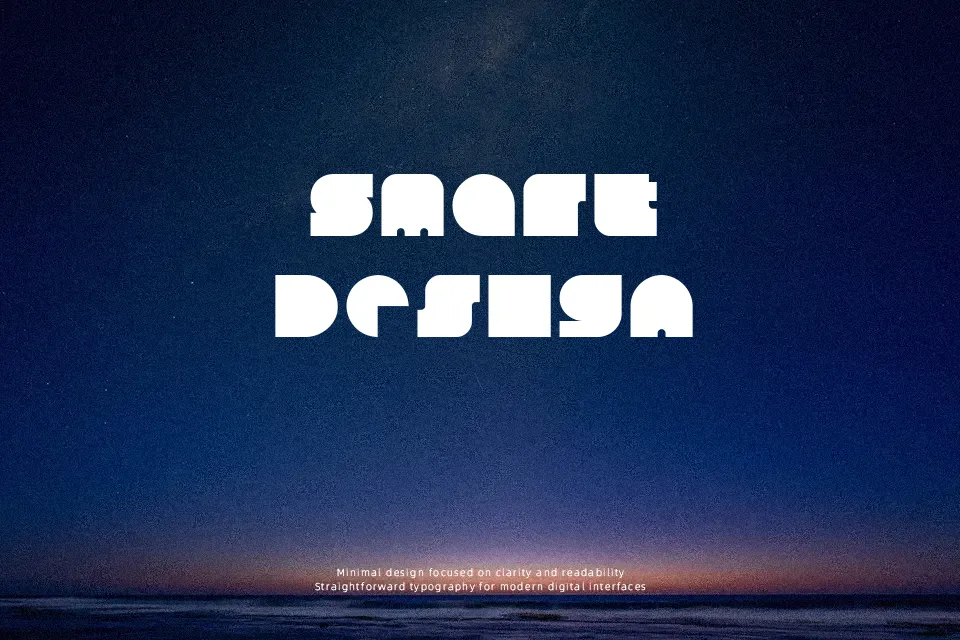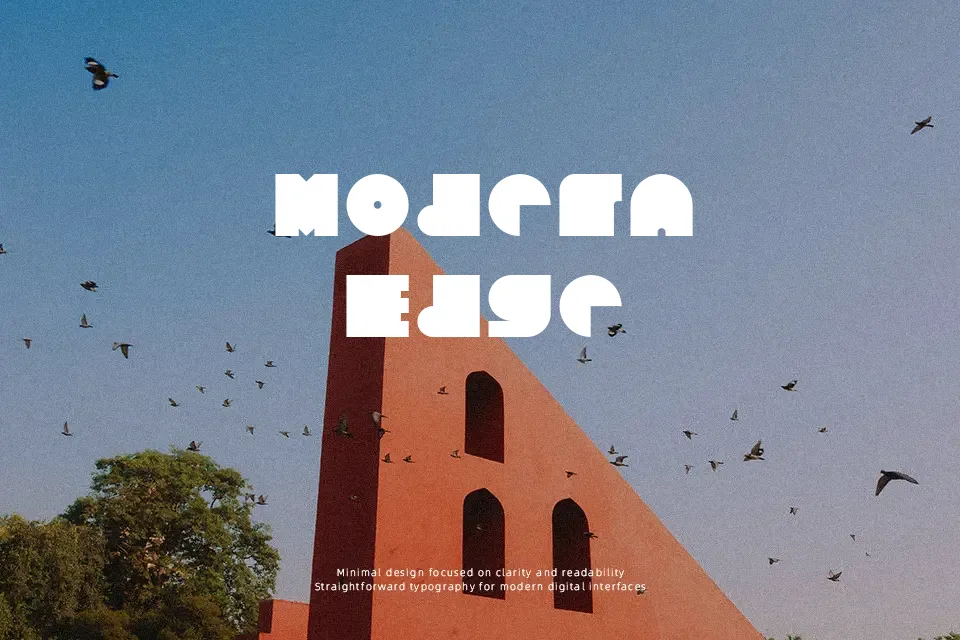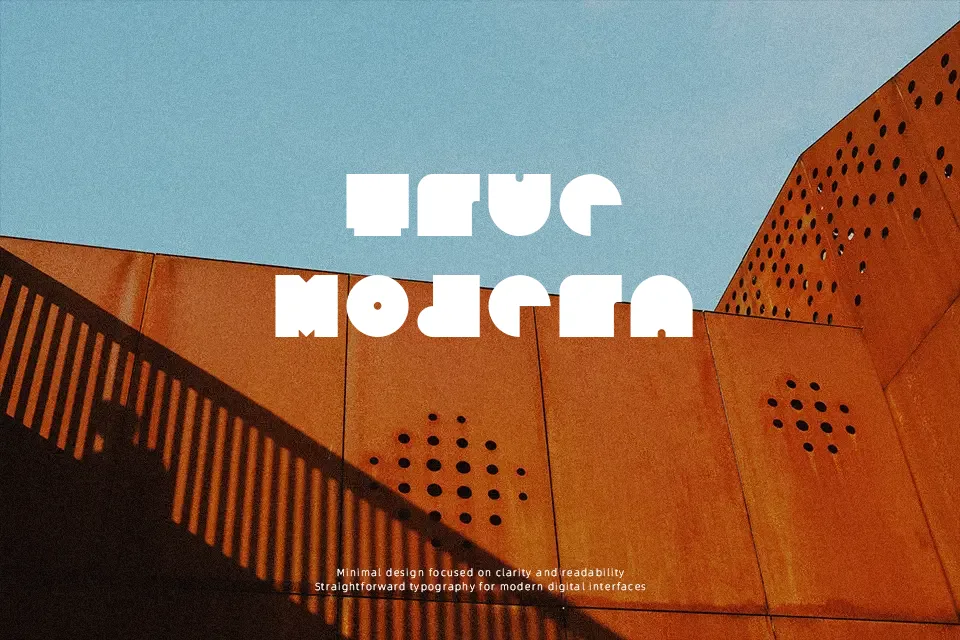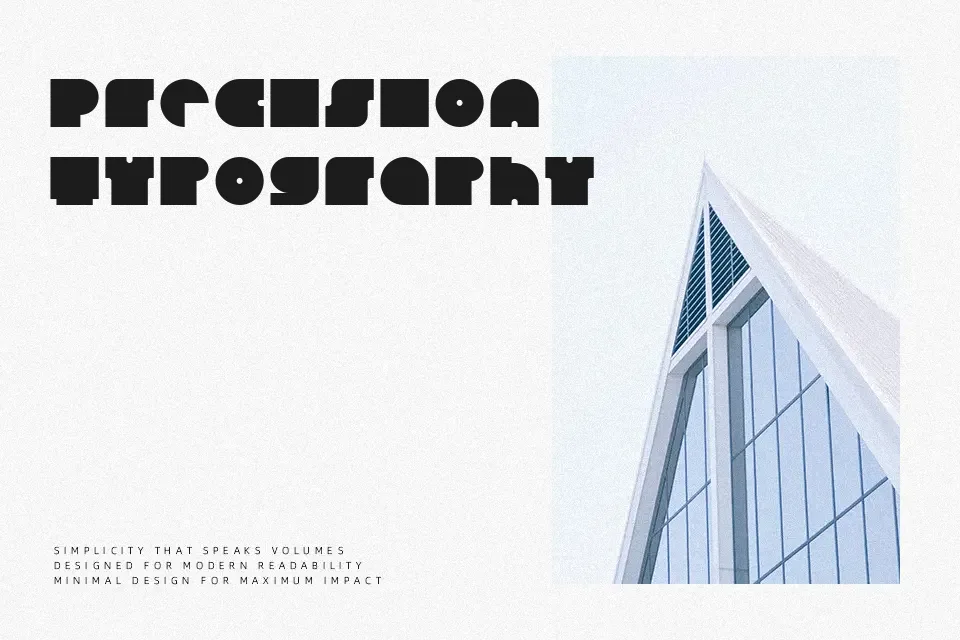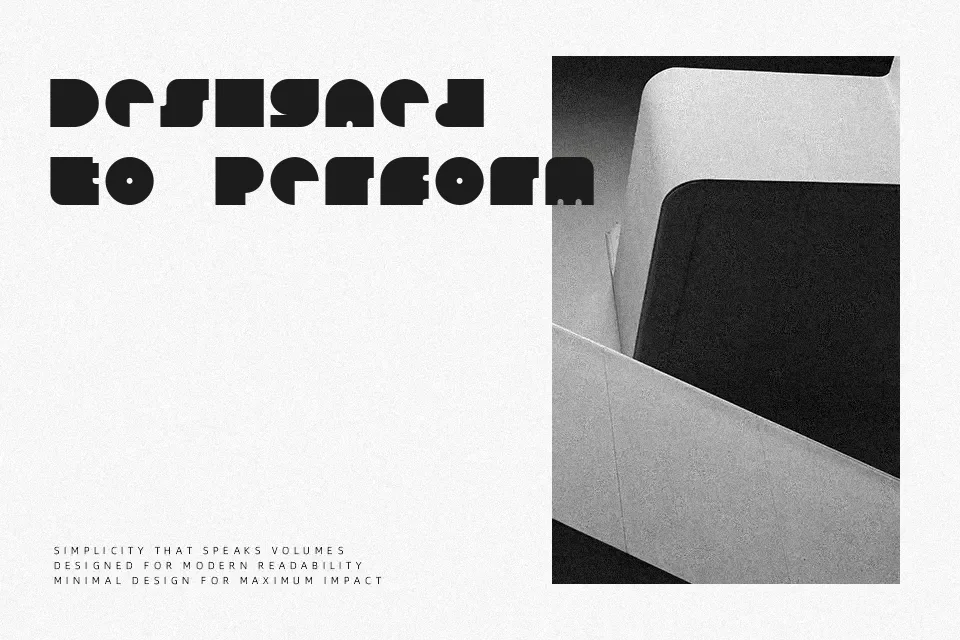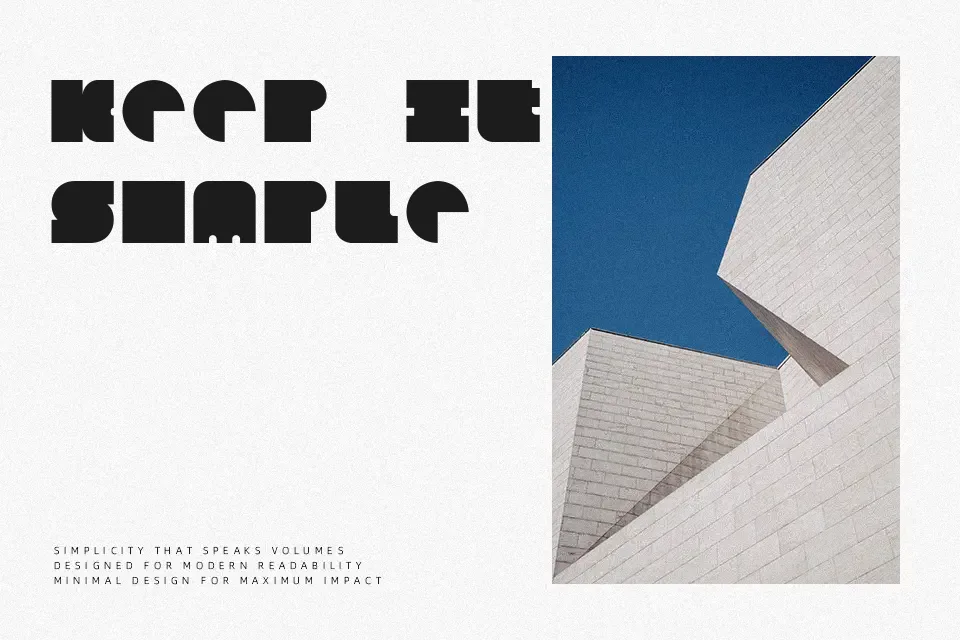
Square 80 Font
Square 80 Font uses broad geometric construction, firm monoline strokes, and sharply squared curves to create a compact display-oriented texture. The uppercase forms appear especially consistent, while the rounded characters retain a deliberately mechanical, modular feel. Spacing is relatively close but remains orderly in short words and large headings, helping the typeface hold together in posters, logos, and cover artwork. It is most effective when given room to scale up, where the structural details stay clear. At smaller sizes, the dense squared forms can make captions and extended text feel less comfortable to read.
Best For: retro music posters,product packaging,logo design,advertising headlines
Perfect for headline, logo, and music, with a bold and display style.